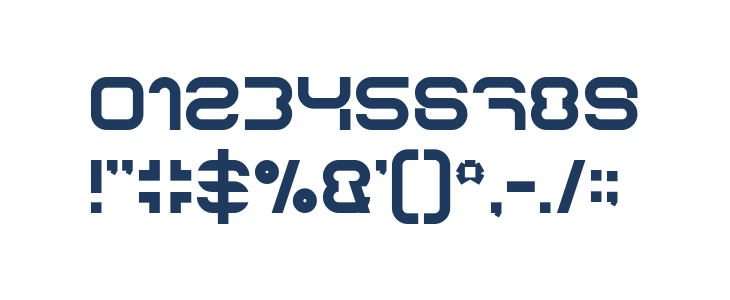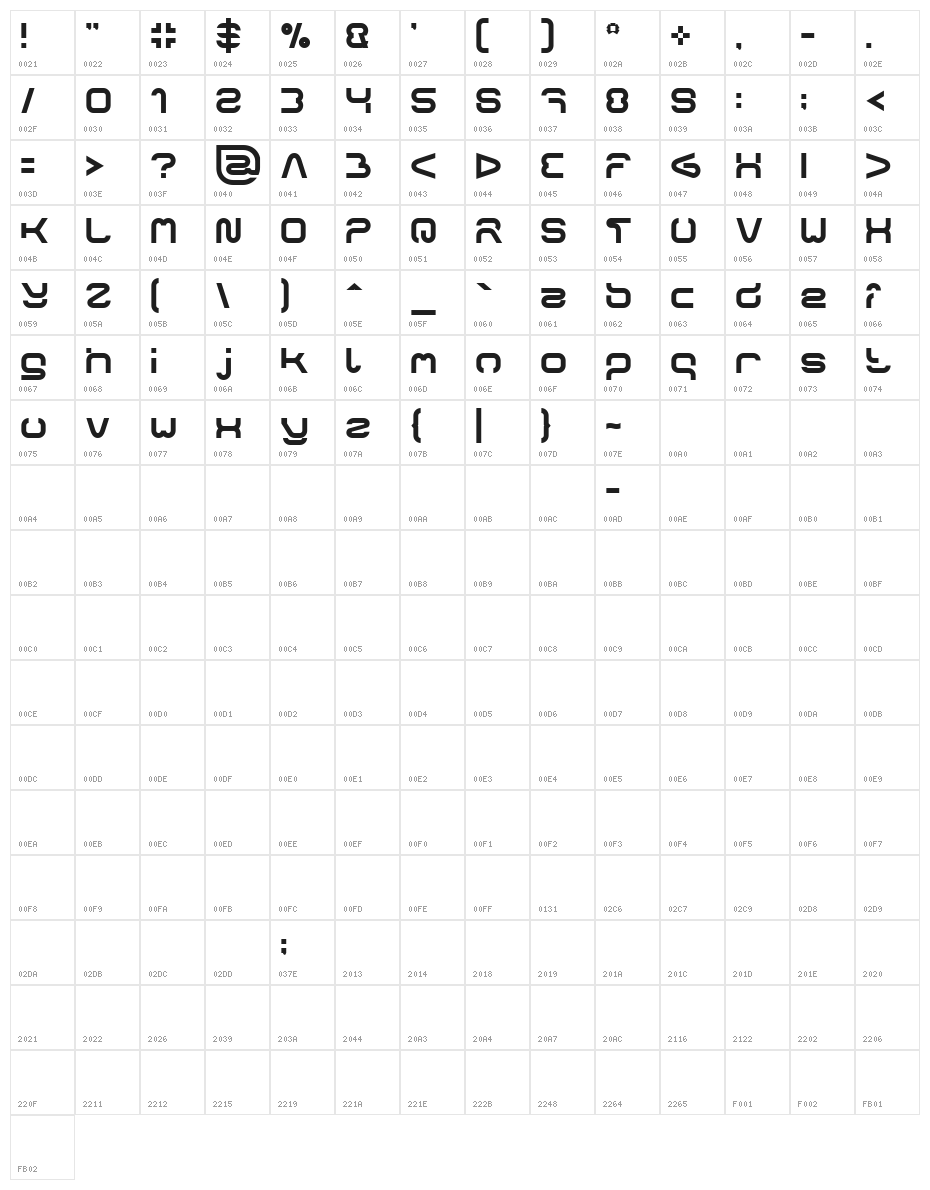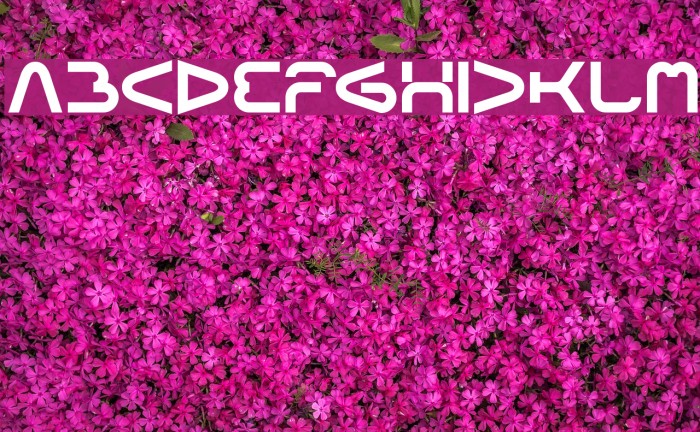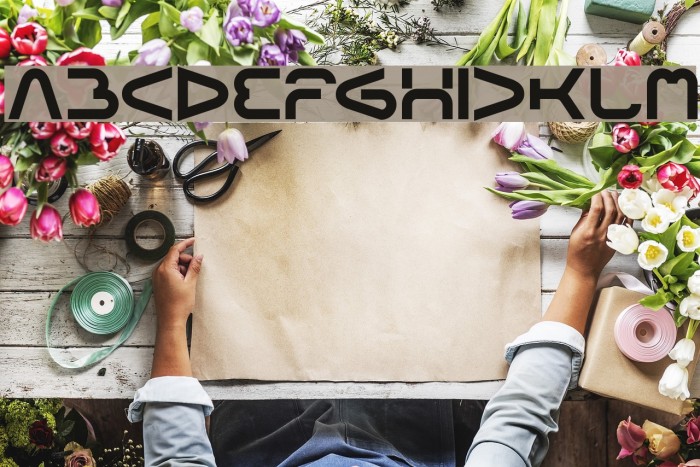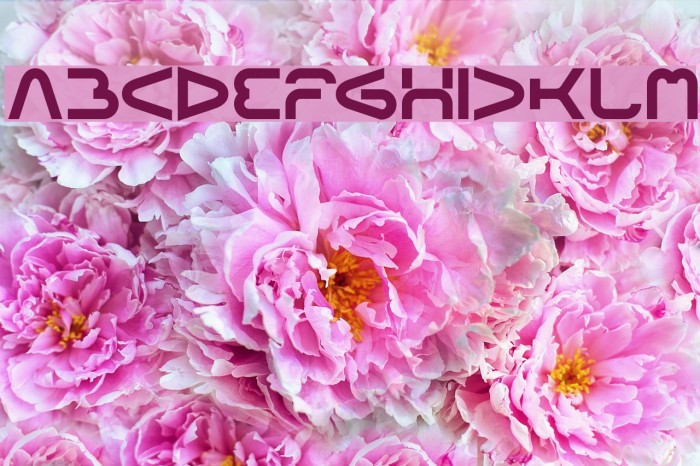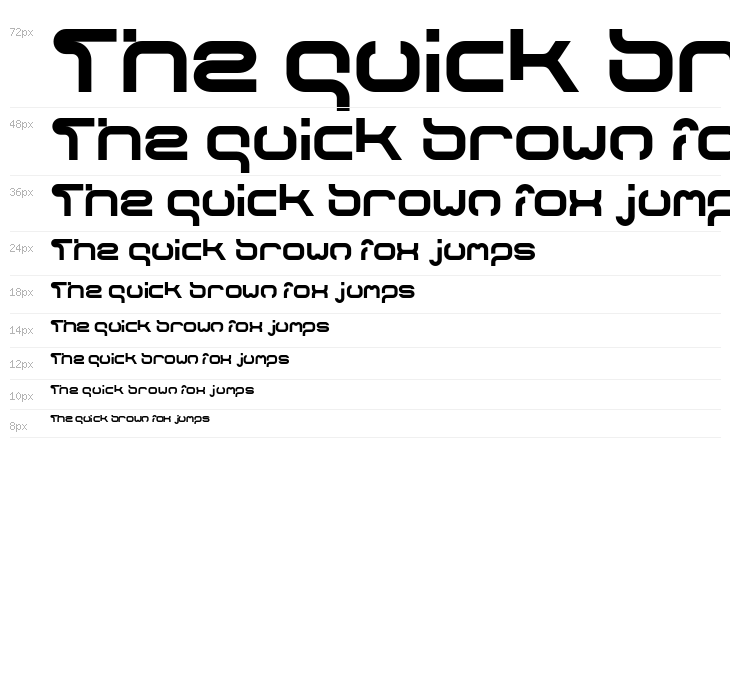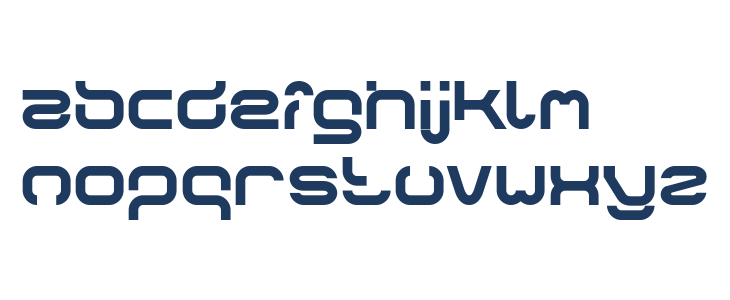
FORMAL ART Font
FORMAL ART Description
This font features a futuristic and geometric design, characterized by its bold and angular letterforms. The uppercase and lowercase letters share a consistent style, with sharp edges and a modern aesthetic. The numbers and special characters maintain this theme, offering a cohesive look across all glyphs. The font's unique style makes it stand out, with a distinct emphasis on symmetry and clean lines. Its bold appearance is suitable for making a strong visual impact, while the geometric shapes provide a sense of precision and modernity.
| Proposed Projects | Ideal for technology branding, sci-fi themed projects, video game titles, and modern advertising. |